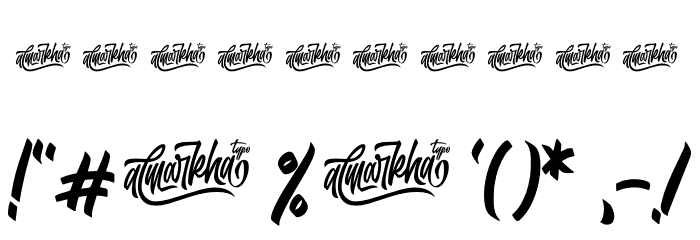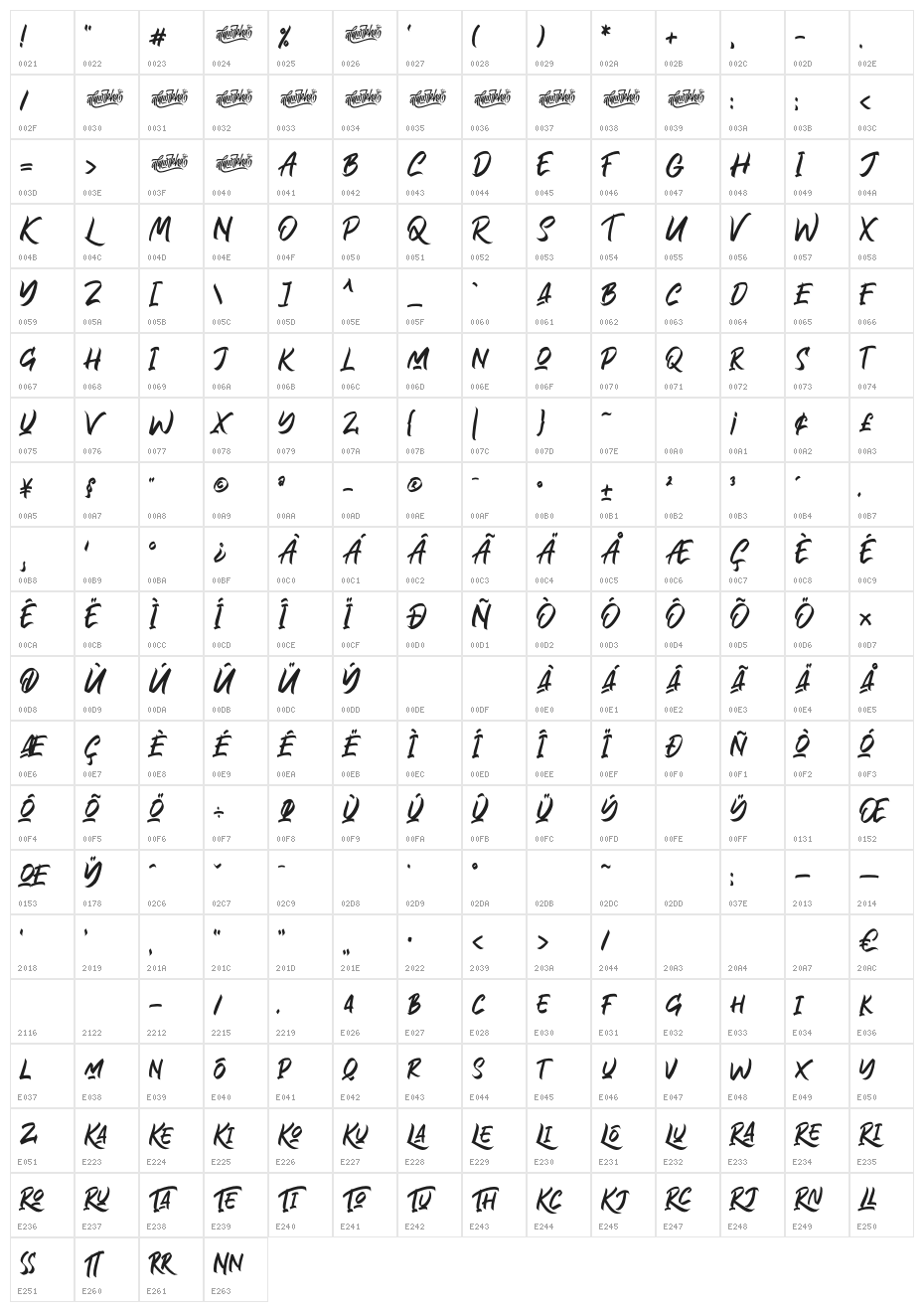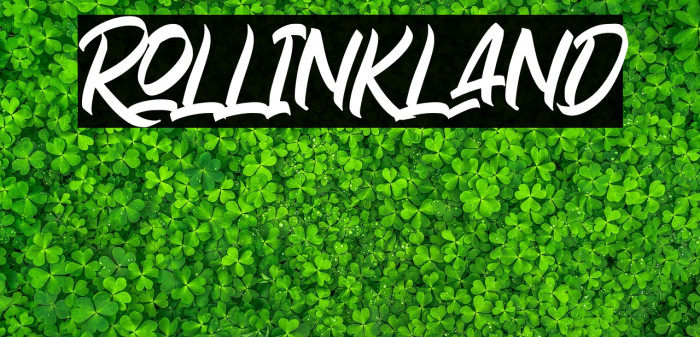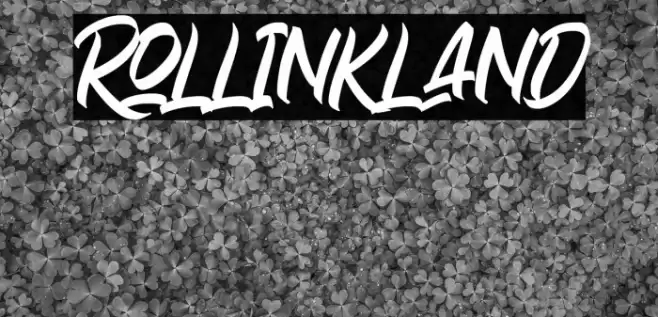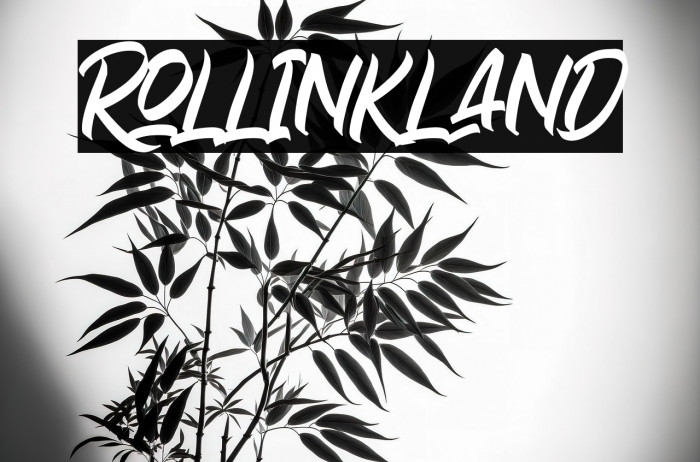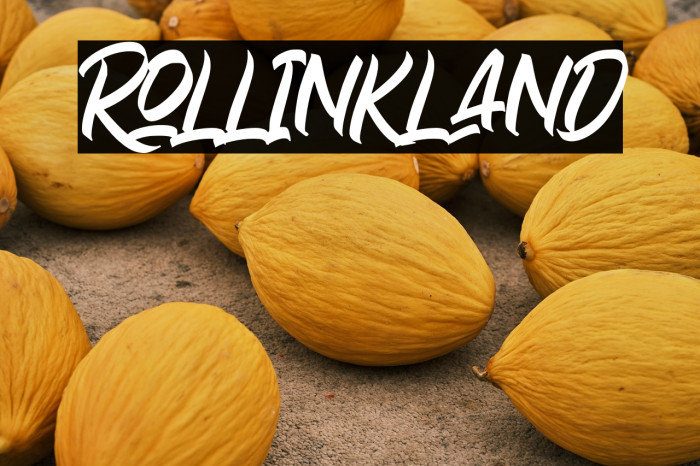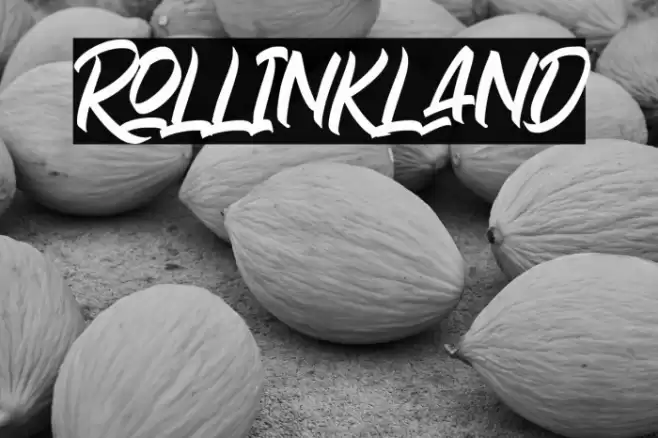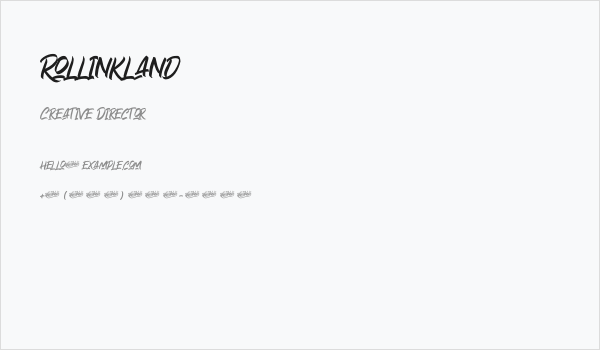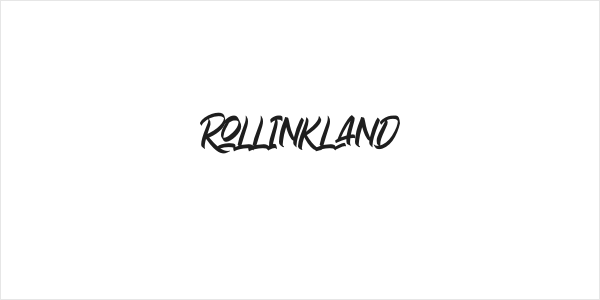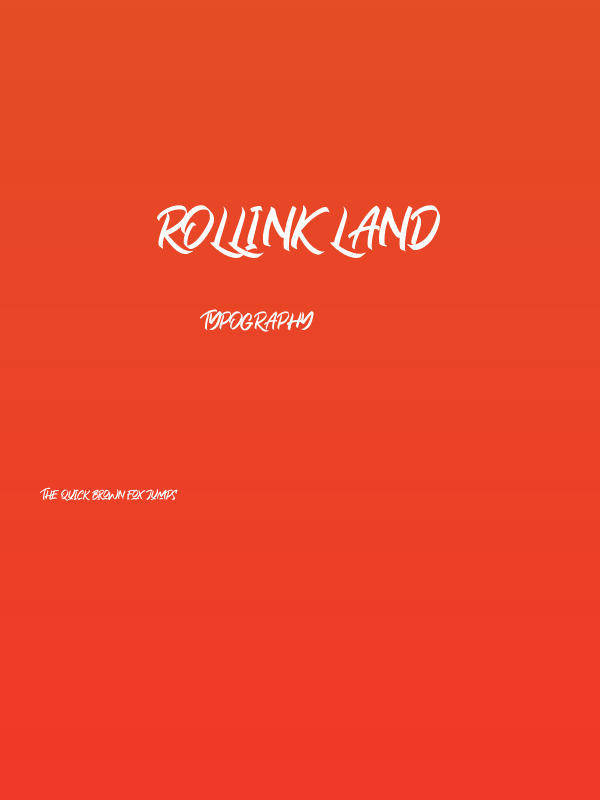
Rollinkland Font
Rollinkland Description
This font exudes a bold and dynamic presence with its brush script style, characterized by sweeping, fluid strokes that convey a sense of motion and energy. The uppercase letters are particularly striking, with exaggerated curves and sharp angles that give them a distinctive flair. The lowercase letters maintain this energetic style, offering a cohesive look throughout. The font's design is reminiscent of street art or graffiti, making it ideal for projects that require a modern and edgy aesthetic. The special characters are equally expressive, adding to the font's overall versatility and appeal.
| Proposed Projects | Ideal for branding, posters, album covers, and any design project that requires a bold, artistic touch. |